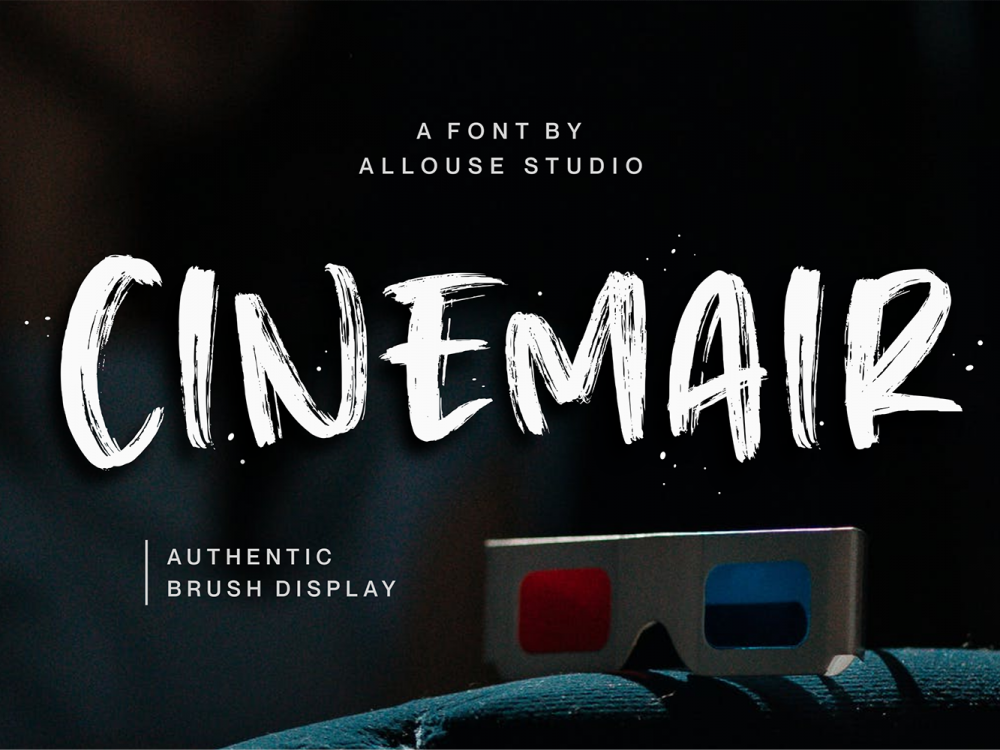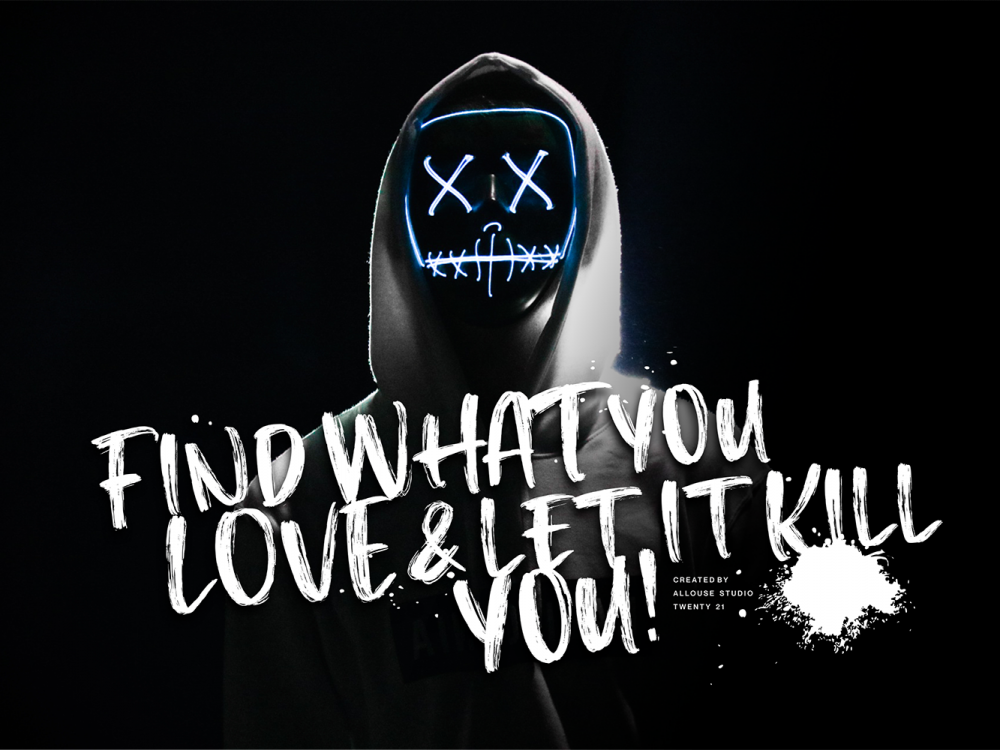
Cinemair Free Font
Cinemair Free Font is an interesting modern beautiful handwritten font that simulates detailed brush writing and is very suitable for creating various unique design projects that require a scripted font. These can be posters, wedding invitations, cards, branding, flyer prints, and more. If you wish to access more features and use them for commercial work please buy the full version.